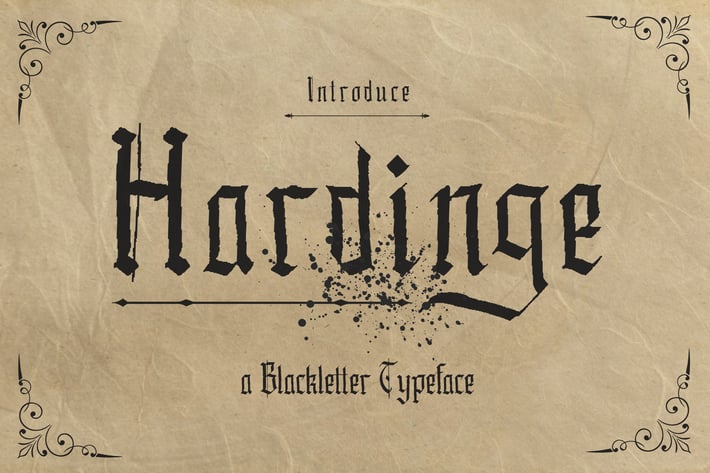
Hardinge - Blackletter Style Typeface
Hardinge is born from an original and blackletter-style font. It has a classic, vintage-style which is perfect for logos, branding materials, prints, business cards, and every other design which needs a unique and striking typeface.
– Lowercase
– Alternates
– Ligature
– Multilingual Support